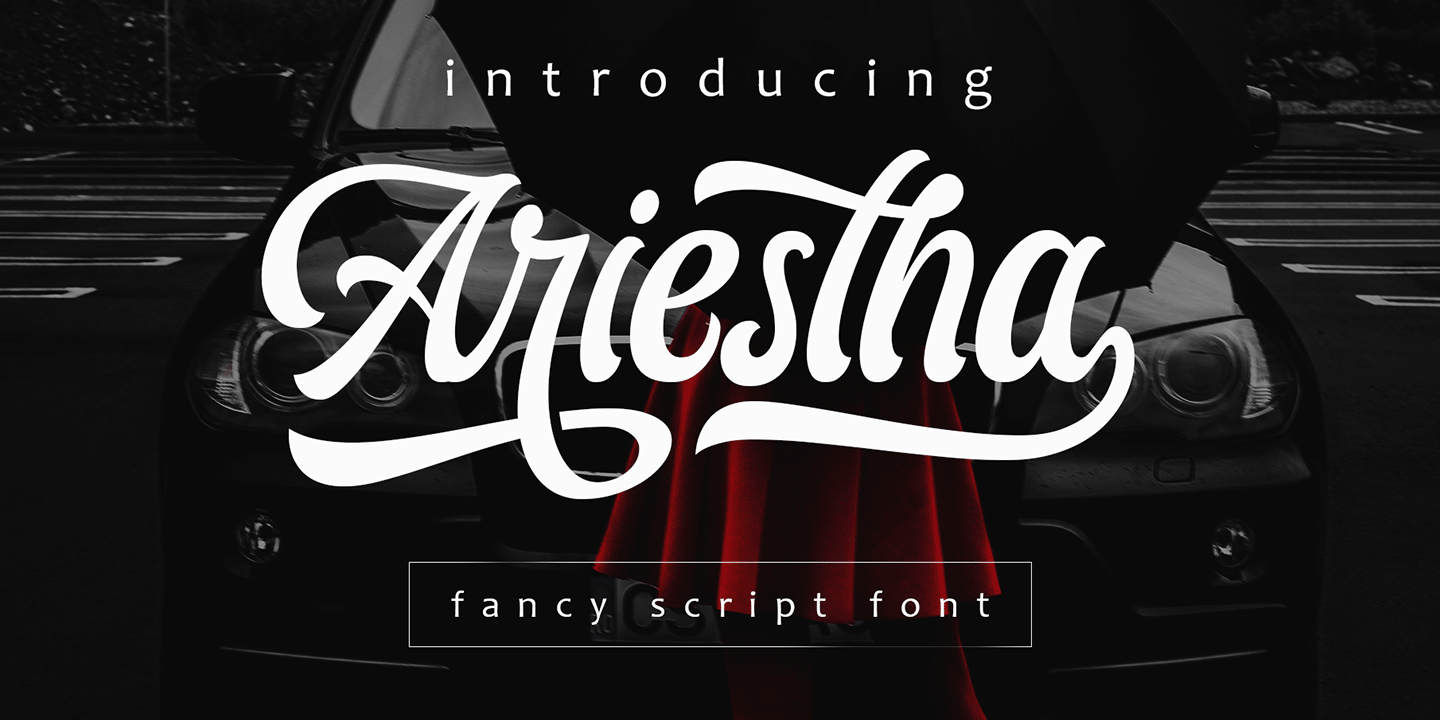
Ariestha Script Font is perfect for elegant wedding invitations, luxury calligraphy services, high-end stationery design, romantic greeting cards, boutique fashion branding, sophisticated beauty products, upscale restaurant menus, exclusive event materials, feminine lifestyle blogs, and any projects that require flowing typography with handwritten elegance and script sophistication.
What makes Ariestha Script Font exciting is its exquisite calligraphic beauty that captures the artistry of master penmanship with flowing letterforms that dance across the page like poetry written in elegant motion. This graceful typeface features sophisticated script characteristics with natural connecting strokes that create seamless word flow and authentic handwritten charm, evoking handwritten love letters, calligraphy masterpieces, and the timeless art of beautiful penmanship. The font's script character makes it perfect for brands seeking to communicate elegance, romance, and the personal touch that only handwritten beauty can provide.
Ariestha Script Font family includes calligraphic style variations featuring regular, bold, light, and ornate versions. The font family also offers decorative swashes with enhanced flourishes, along with alternate characters and stylistic ligatures that provide extensive customization possibilities. Special features include elegant connecting strokes, calligraphic ornaments, and flowing decorative elements that enhance the sophisticated script atmosphere of luxury design applications.
Write your story in elegance with Ariestha Script Font Free Download and transform your designs into handwritten masterpieces that capture hearts and inspire admiration through the timeless beauty of sophisticated script typography. This exquisite typeface delivers calligraphic excellence across all romantic applications, ensuring your message flows with the grace and elegance that defines truly memorable handwritten communication. Download Ariestha Script Font today and pen your success with typography that celebrates the lost art of beautiful handwriting, creating intimate connections with audiences who appreciate the personal touch and romantic elegance of authentic calligraphic expression.